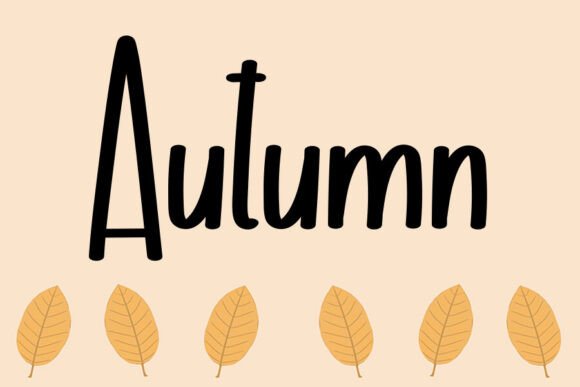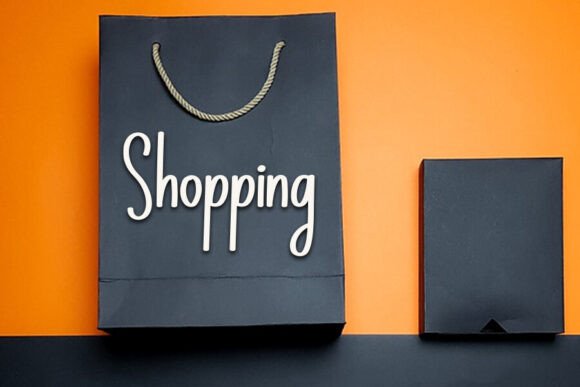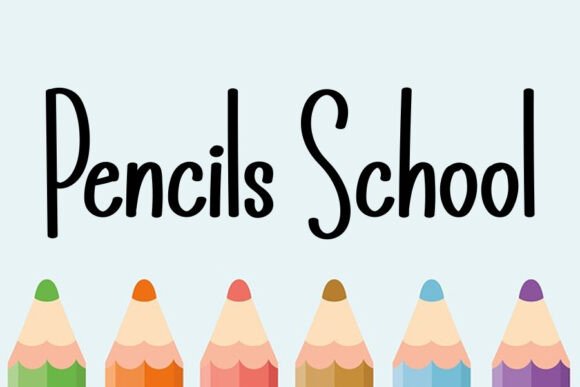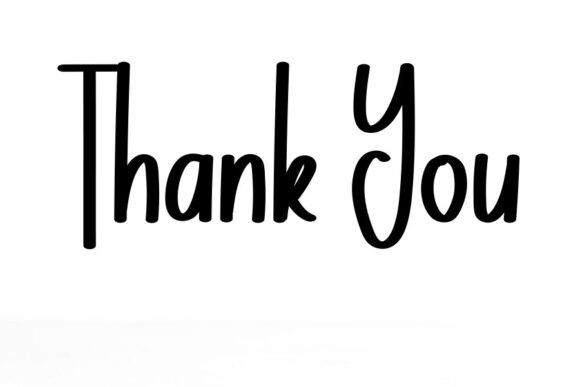
Introducing Believe Font: The Sweet and Cursive Handwritten Font for Your Design Needs
Are you looking for a font that can add a touch of elegance and romance to your designs? Look no further than Believe Font, a sweet and cursive handwritten font that is perfect for a variety of design projects. With its gentle and flowing curves, Believe Font is sure to make your designs stand out and leave a lasting impression.
What Makes Believe Font Special?
Believe Font is a unique and versatile font that can be used for a wide range of design ideas. Its cursive and handwritten style gives it a personal and intimate feel, making it perfect for designs that require a touch of warmth and personality. Whether you’re working on a branding project, a wedding invitation, or a fashion lookbook, Believe Font is sure to add a joyful and romantic touch to your design.
Believe Font is a versatile font that can be used for a variety of design projects, including:
- Branding: Use Believe Font to create a unique and memorable brand identity that stands out from the crowd.
- Logo Design: Create a stunning logo that showcases your brand’s personality and style with Believe Font.
- Wedding Things: Add a touch of romance and elegance to your wedding designs, such as invitations, programs, and place cards.
- Greeting Cards: Create beautiful and heartfelt greeting cards for special occasions, such as birthdays, anniversaries, and holidays.
- Fashion: Use Believe Font to create stunning fashion lookbooks, catalogs, and advertisements that showcase your brand’s style and personality.
- Marketing Promotion: Add a touch of elegance and sophistication to your marketing materials, such as brochures, flyers, and posters.
Why Choose Believe Font?
There are many reasons why Believe Font is the perfect choice for your design needs. Here are just a few:
- Elegant and Casual: Believe Font is both elegant and casual, making it perfect for designs that require a touch of sophistication and personality.
- Unique and Versatile: Believe Font is a unique and versatile font that can be used for a wide range of design projects.
- Easy to Read: Believe Font is easy to read and understand, making it perfect for designs that require a clear and concise message.
- High-Quality: Believe Font is a high-quality font that is designed to deliver exceptional results.
How to Use Believe Font
Using Believe Font is easy and straightforward. Here are a few tips to get you started:
- Pair it with Other Fonts: Believe Font pairs well with other fonts, such as sans-serif fonts and script fonts.
- Experiment with Different Sizes: Believe Font looks great in a variety of sizes, from small and delicate to large and bold.
- Use it for Headings and Body Text: Believe Font is perfect for both headings and body text, making it a versatile font for a wide range of design projects.
In conclusion, Believe Font is a sweet and cursive handwritten font that is perfect for a variety of design projects. With its elegant and casual style, Believe Font is sure to add a touch of romance and sophistication to your designs. Whether you’re working on a branding project, a wedding invitation, or a fashion lookbook, Believe Font is the perfect choice for designers and crafters who want to create stunning and memorable designs.